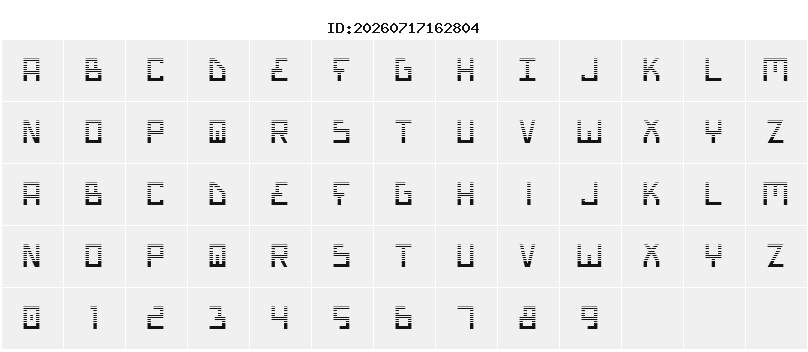
Bionic Type Gradient Preview
• Font Name: Bionic Type Gradient
• Font Style: Gradient
• Font ID: Bionic Type
• Full Font Name: Bionic Type Gradient
• PostScript Name: BionicTypeGradient
About Bionic Type Gradient.ttf
Bionic Type Gradient.ttf is a modern, elegant sans-serif font designed for ultimate readability and visual harmony. Perfect for branding, headlines, web design, and print materials.